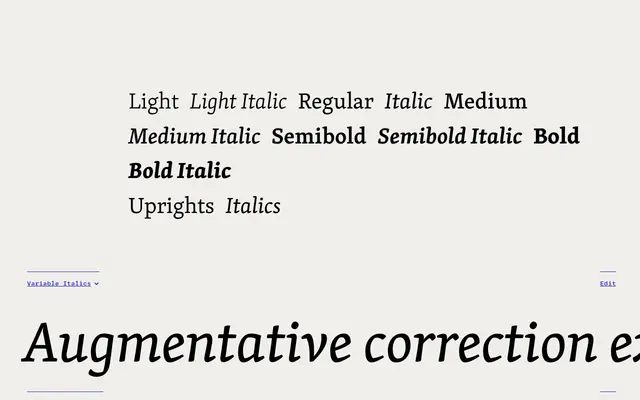
Skolar PE
Rosetta · David Březina
A multilingual text serif from Rosetta covering Latin, Cyrillic and Greek with particular care given to diacritic design across scripts.
Skolar PE offers five weights with matching italics and variable font support, making it well suited to long-form scholarly and editorial work. Its diacritic handling is notable, with forms tuned to the conventions of individual languages rather than a one-size-fits-all approach common to larger foundries. The breadth of script coverage, including Vietnamese-extended Latin, polytonic Greek and Cyrillic, makes it a considered choice for multilingual publishing.
Skolar PE is a text serif designed for demanding multilingual typography, with features typical of transitional serifs adapted for scholarly and extended Latin, Cyrillic and Greek use. Its careful diacritic design and robust text rendering place it firmly in the transitional category.